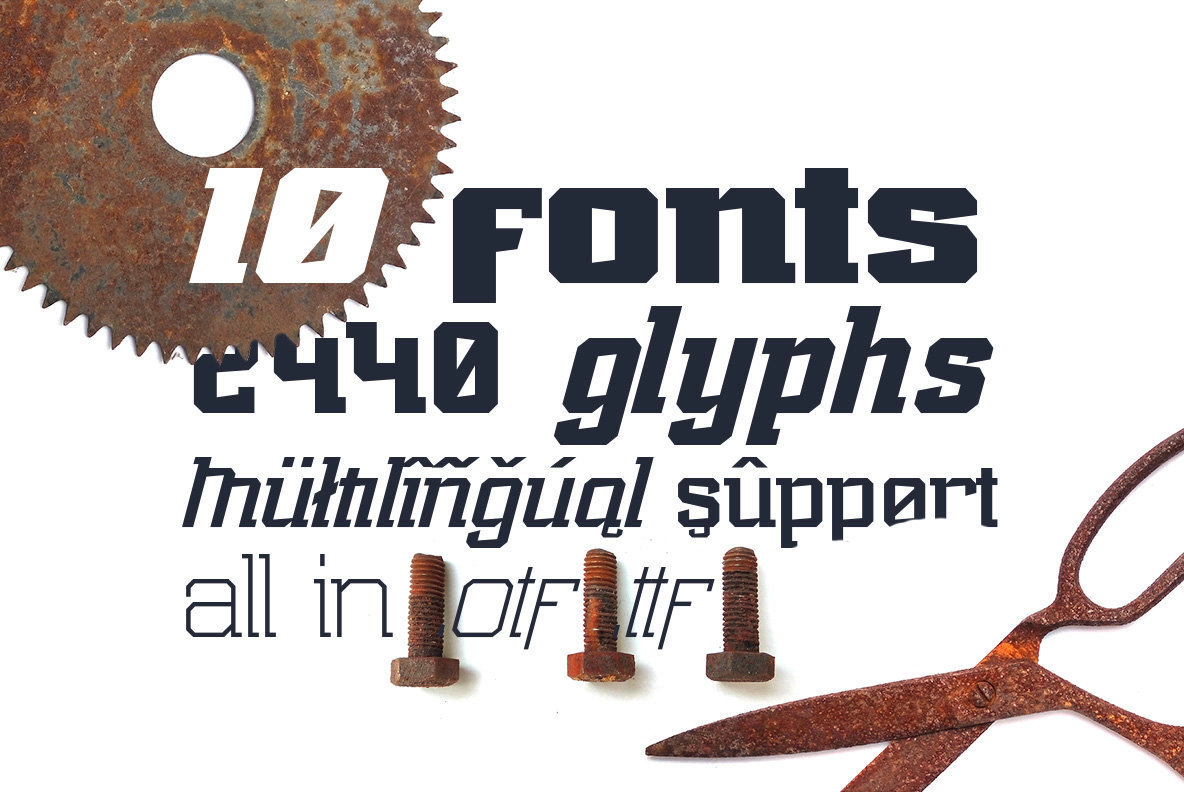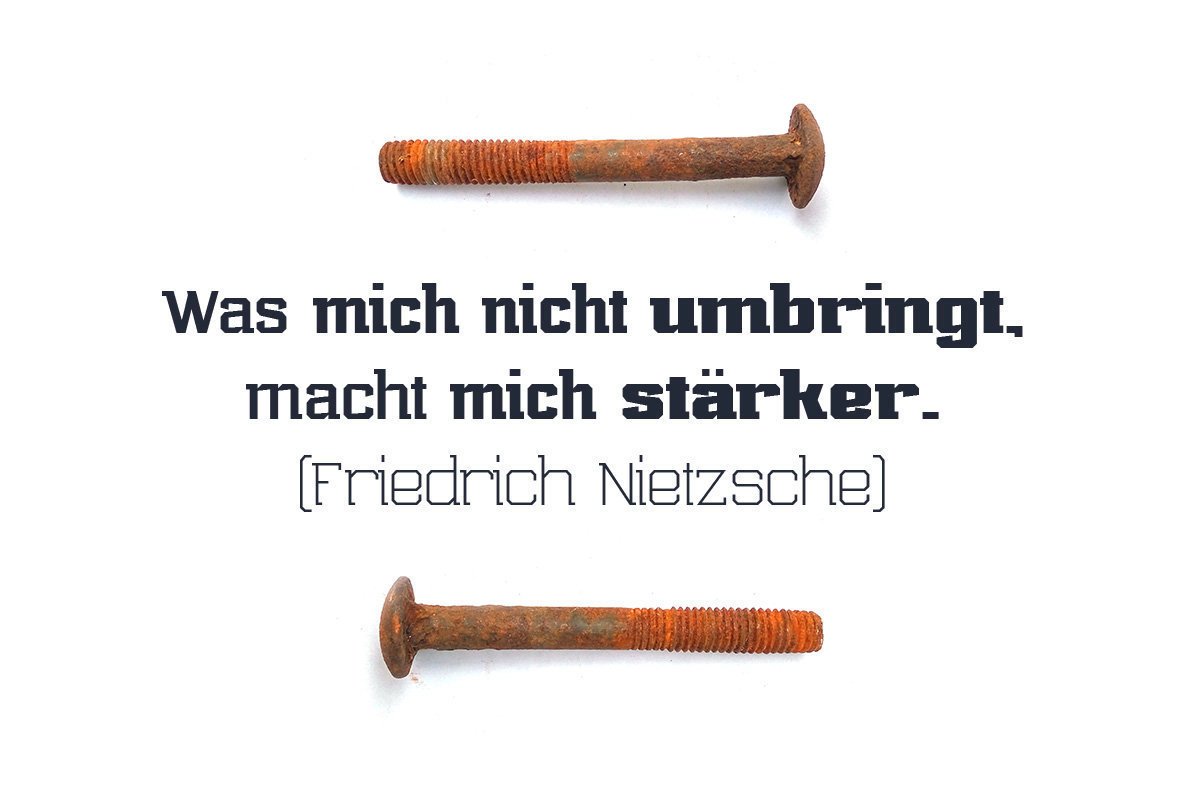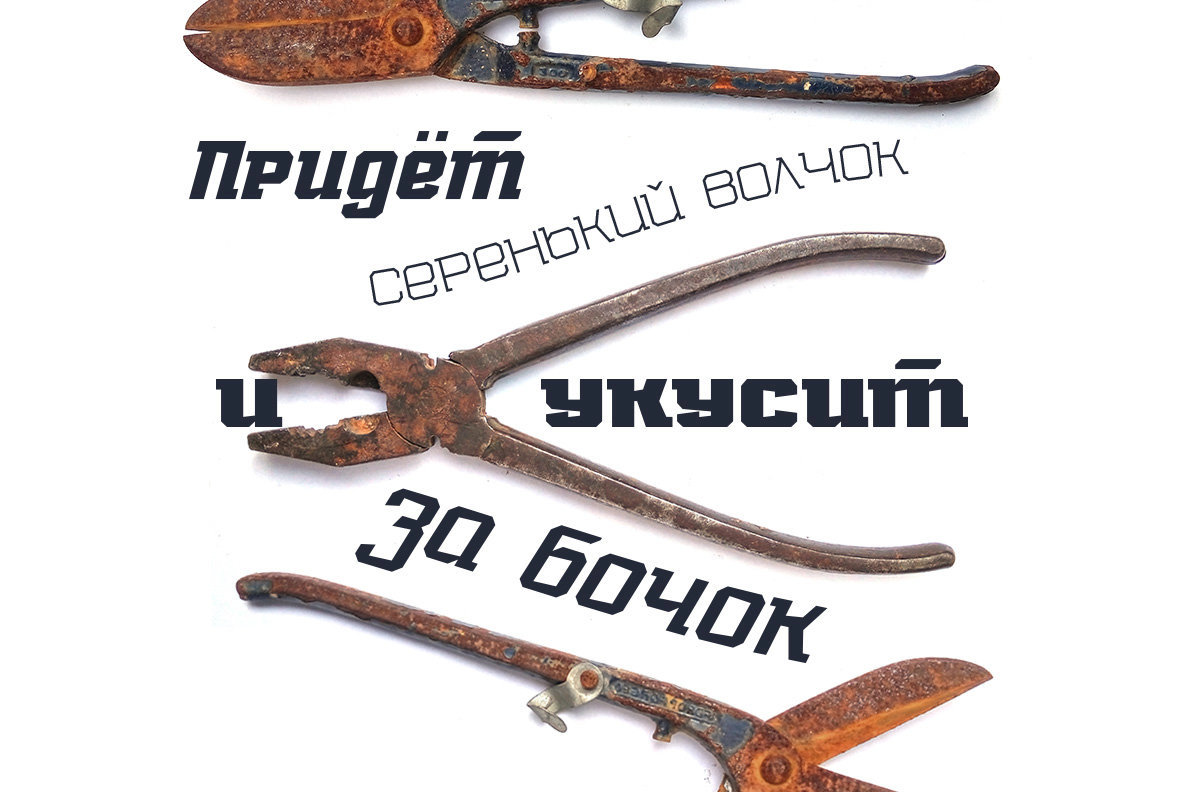
Marvin Slab Font
Hello! Happy to present the ultimate MARVIN font family - slab serif typeface.
Font inspired by Marvin Heemeyer history. It have 4 weights from strength, massive forms as bulldozer, to easy light thin lines. Font looks amazing as alone words and as full text blocks. Also it good for bright captions and unforgettable logos.
It have supporting for many languages as: Czech, Danish and Norwegian, Deutsch, English, Espanol, French, Italiano, Magyar, Nederlands, Polish, Portuguese, Finnish, Swedish, Turkish, Russian and other based on extended latin. Included 10 fonts (2440 glyphs)